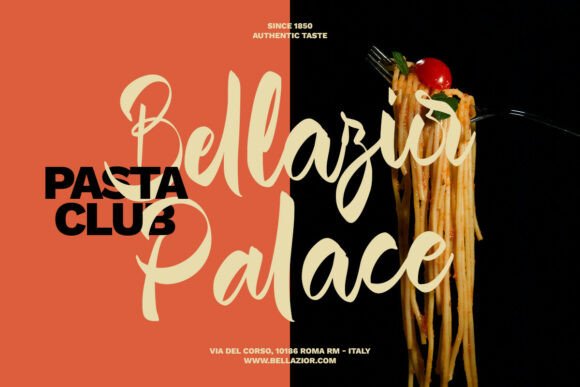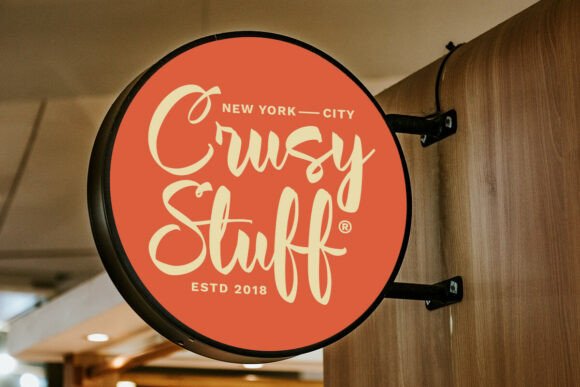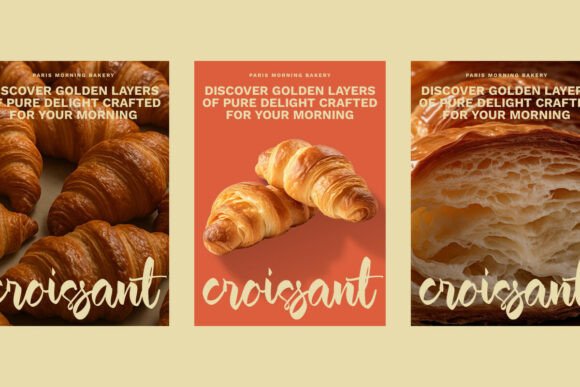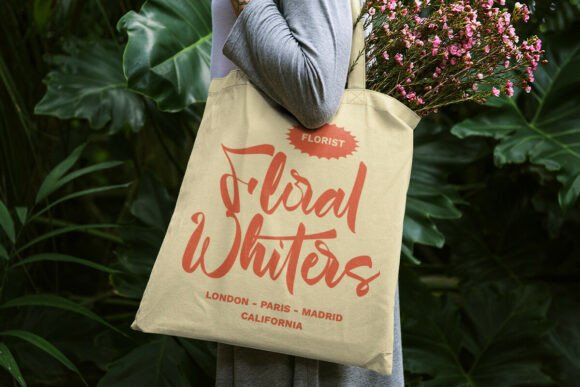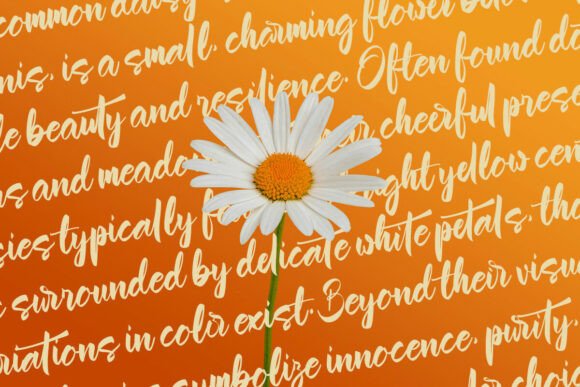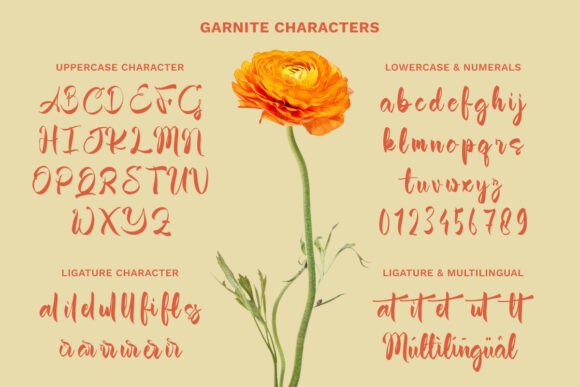
Garnite Font: Elevate Your Designs with Elegance and Playfulness
In the world of typography, fonts play a crucial role in conveying the tone and personality of a brand, product, or message. Among the numerous font styles available, handwritten script fonts have gained immense popularity for their unique ability to add a personal touch to designs. One such font that has captured the hearts of designers and crafters alike is the Garnite Font. In this article, we’ll explore the features, benefits, and uses of Garnite, and why it’s becoming a go-to choice for creative projects.
The Essence of Garnite Font
Garnite is a stylish handwritten script font that embodies elegance and playfulness in every stroke. Its flowing curves and natural rhythm make it an ideal choice for designs that require a touch of sophistication and whimsy. With Garnite, you can add a charming and personal feel to your invitations, branding, social media, and more. The font’s graceful design brings warmth, sophistication, and creativity to any project, making it perfect for designers and crafters looking to make a statement.
Key Features of Garnite Font
- Elegant and Playful Design: Garnite’s unique blend of elegance and playfulness makes it versatile for various design applications.
- Flowing Curves and Natural Rhythm: The font’s smooth, flowing curves create a natural rhythm that adds a personal touch to your designs.
- Highly Legible: Garnite is designed to be highly legible, making it suitable for body text, headings, and titles.
- Multilingual Support: The font supports multiple languages, allowing you to use it for global projects.
- Easy to Use: Garnite is compatible with popular design software, making it easy to integrate into your workflow.
Uses of Garnite Font
Garnite’s versatility makes it suitable for a wide range of design applications, including:
- Invitations and Stationery: Add a touch of elegance and whimsy to your wedding invitations, birthday cards, and other stationery.
- Branding and Packaging: Use Garnite to create unique and memorable brand identities, product labels, and packaging designs.
- Social Media and Blogging: Elevate your social media graphics, blog posts, and articles with Garnite’s playful and sophisticated touch.
- Advertising and Marketing: Create eye-catching ads, flyers, and brochures that showcase your brand’s personality.
Benefits of Using Garnite Font
By incorporating Garnite into your designs, you can:
- Stand Out from the Crowd: Garnite’s unique design helps you differentiate your brand and create a lasting impression.
- Convey Emotion and Personality: The font’s elegant and playful feel allows you to convey complex emotions and personality traits.
- Enhance Readability: Garnite’s high legibility ensures that your message is communicated clearly and effectively.
- Save Time and Effort: The font’s ease of use and versatility save you time and effort in the design process.
Garnite Font is a stylish and versatile handwritten script font that offers a perfect blend of elegance and playfulness. Its flowing curves, natural rhythm, and high legibility make it an excellent choice for designers and crafters looking to add a personal touch to their projects. With its wide range of applications and benefits, Garnite is sure to become a staple in your font collection. So why wait? Discover the beauty of Garnite and elevate your designs to new heights!